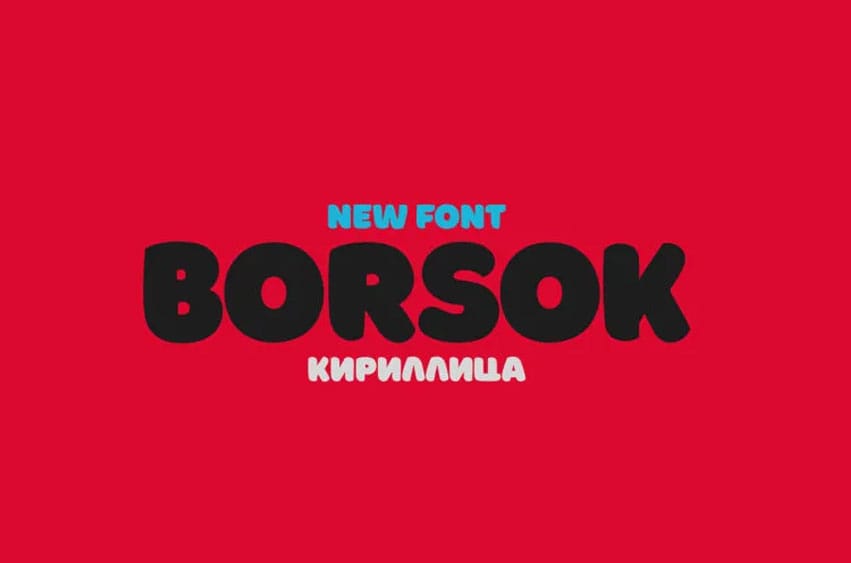
Borsok Font Balloons is an amazing font designed and offered by Dastan Miraj as a lovely font for posters, greeting cards, or crafting and cutting projects!
Great for headings, quotes blog posts logos t-shirts invitations and so on – as well as kids styles!